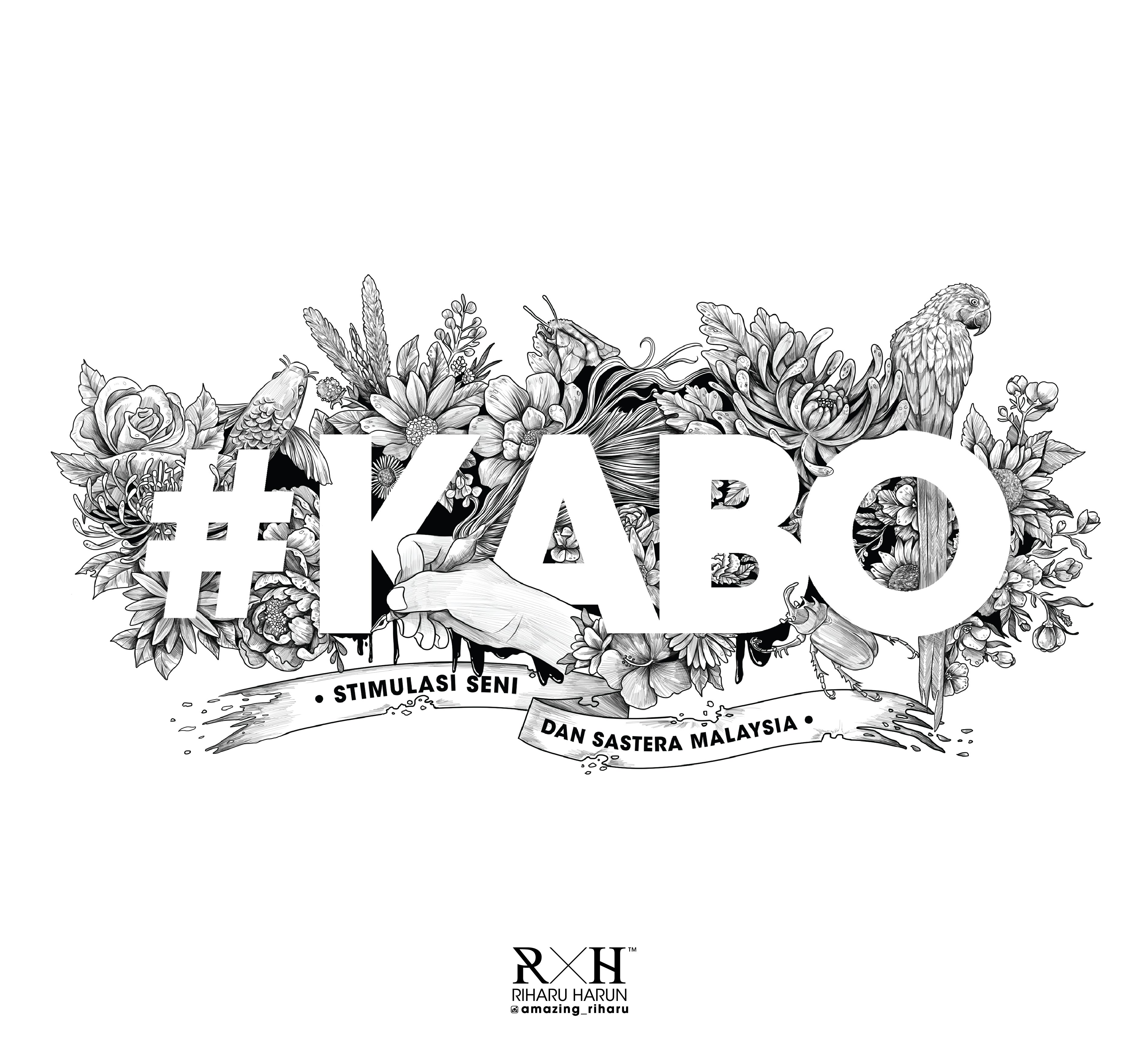
Stencil Font Doodle for Stimulasi Seni & Sastera Malaysia
This is one of my doodle illustration that using stencil concept
''Berjuang Dengan Jiwa, Menikam Dengan Kata''